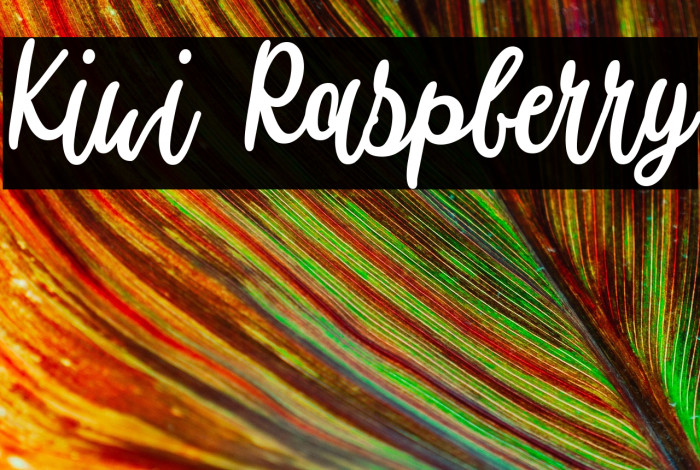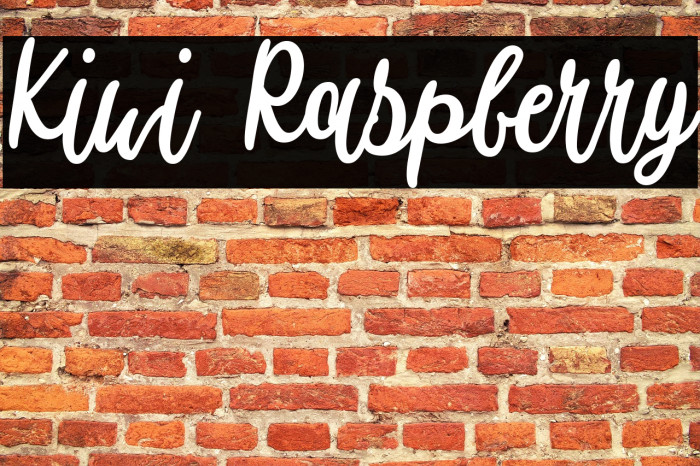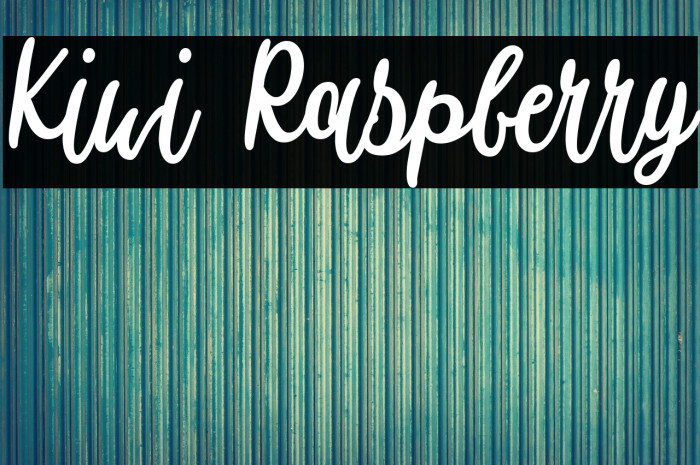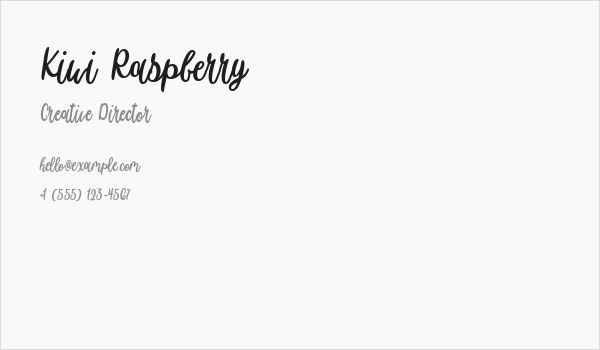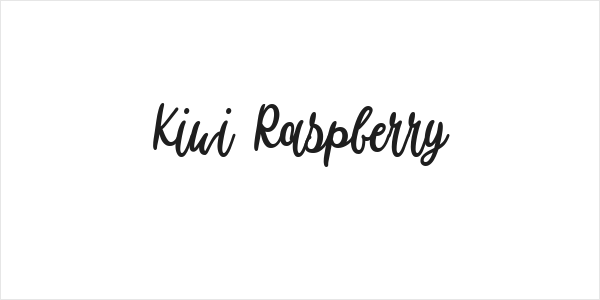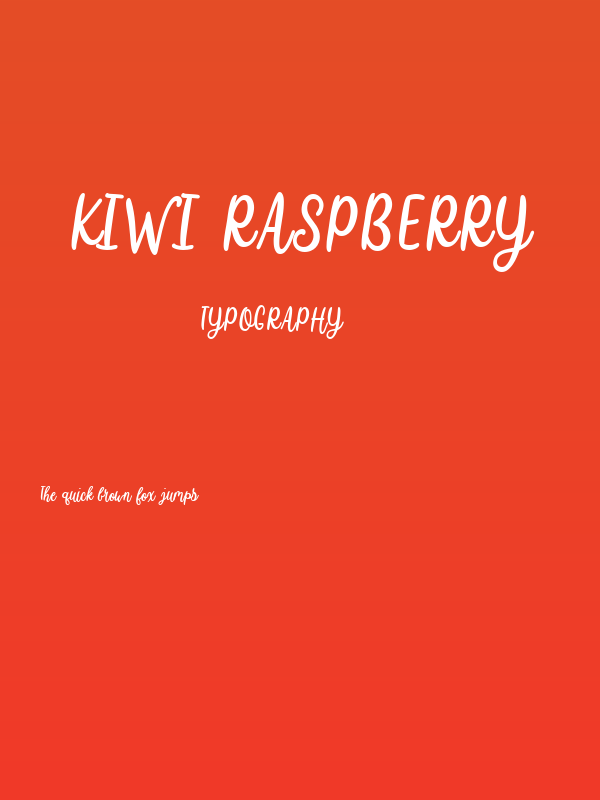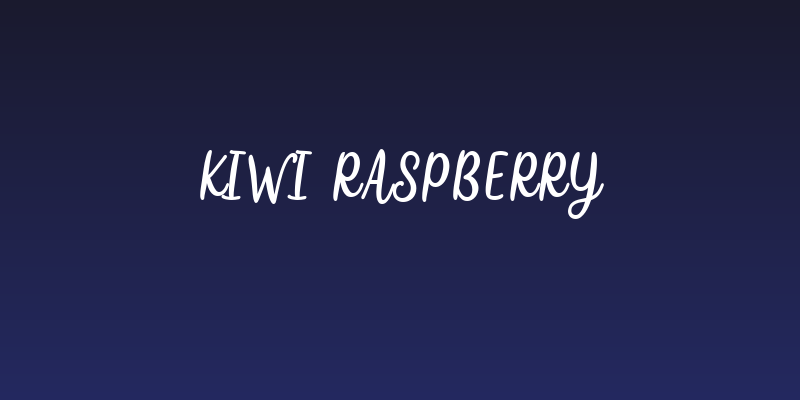
Kiwi Raspberry Font
Kiwi Raspberry Description
This font features a playful and energetic script style with a handwritten appearance. The letters are connected, giving it a fluid and continuous flow, reminiscent of casual handwriting. The strokes are bold and consistent, providing a strong visual impact. The uppercase letters maintain a uniform height, while the lowercase letters exhibit a slight slant, enhancing the dynamic feel. Numbers and special characters are crafted with the same lively style, ensuring cohesion across all elements. This font is ideal for projects that require a personal touch or a sense of informality.
| Use Case | Logos, Headlines, Invitations |
| Proposed Projects | Great for greeting cards, invitations, logos, and social media graphics. |